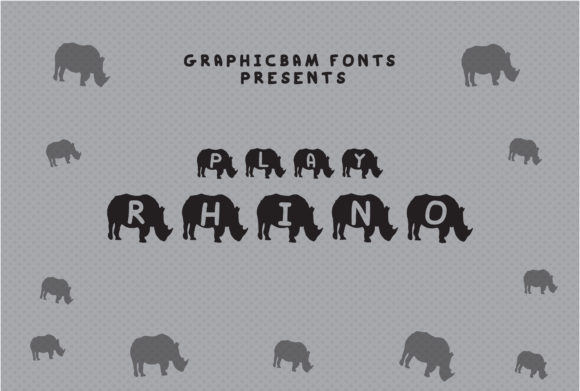
Behold, Play Rhino, the captivating creation of GraphicsBam Fonts – an enchanting decorative font, tailored to ignite the imaginations of designers and creatives alike. Unleash your creativity and dive into a world of captivating designs, where stories come to life, and imaginations soar.
With Play Rhino at your fingertips, transform ordinary designs into captivating masterpieces. Let your creativity take center stage as you craft stunning storybook covers that capture the essence of childhood wonder. Create enchanting children's designs that spark imaginations and transport readers to magical realms. Design eye-catching posters that command attention and leave a lasting impression. The possibilities are boundless, waiting for you to explore and bring your unique vision to life.
Play Rhino isn't just a font; it's an artistic journey, an invitation to embark on a creative adventure. Its charming and playful style adds a touch of whimsy to any design, making it perfect for projects that demand a captivating and engaging aesthetic. Whether you're a seasoned designer or just starting your creative journey, Play Rhino is your perfect companion, ready to elevate your designs to new heights of artistry.
So, why settle for ordinary when you can embrace the extraordinary? Choose Play Rhino, a font that embodies imagination, creativity, and the magic of storytelling. Let your designs shine with a touch of playfulness and charm, captivating your audience and leaving them spellbound. The world of design awaits your creative touch. Embrace Play Rhino and embark on an artistic voyage like never before.